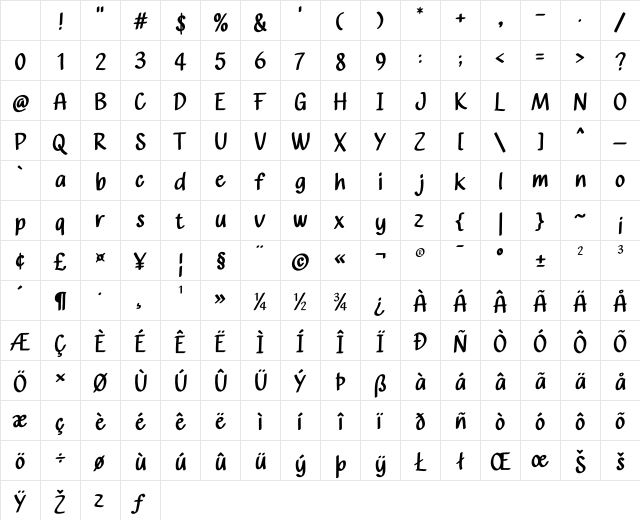
Complete Summer Nyumer Regular glyph index. Displaying only characters natively supported by Summer Nyumer Regular font.
Summer Nyumer is a composed and adaptable typeface that performs quietly and consistently across a wide range of design contexts.